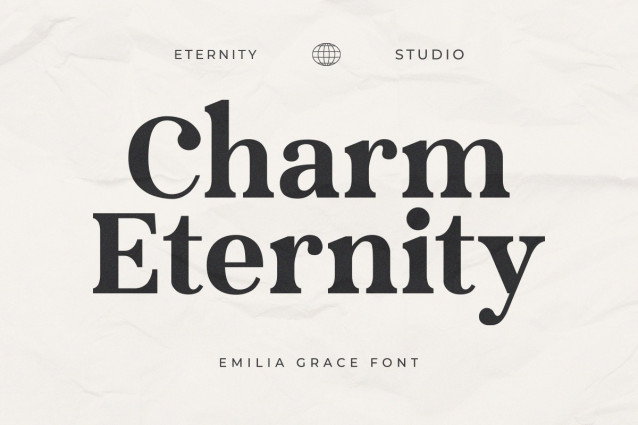
ET Emilia Grace Font
ET Emilia Grace Font is a modern serif font that embodies elegance and sophistication. With clean lines and refined details, this font delivers a timeless look that’s perfect for both classic and contemporary design projects.